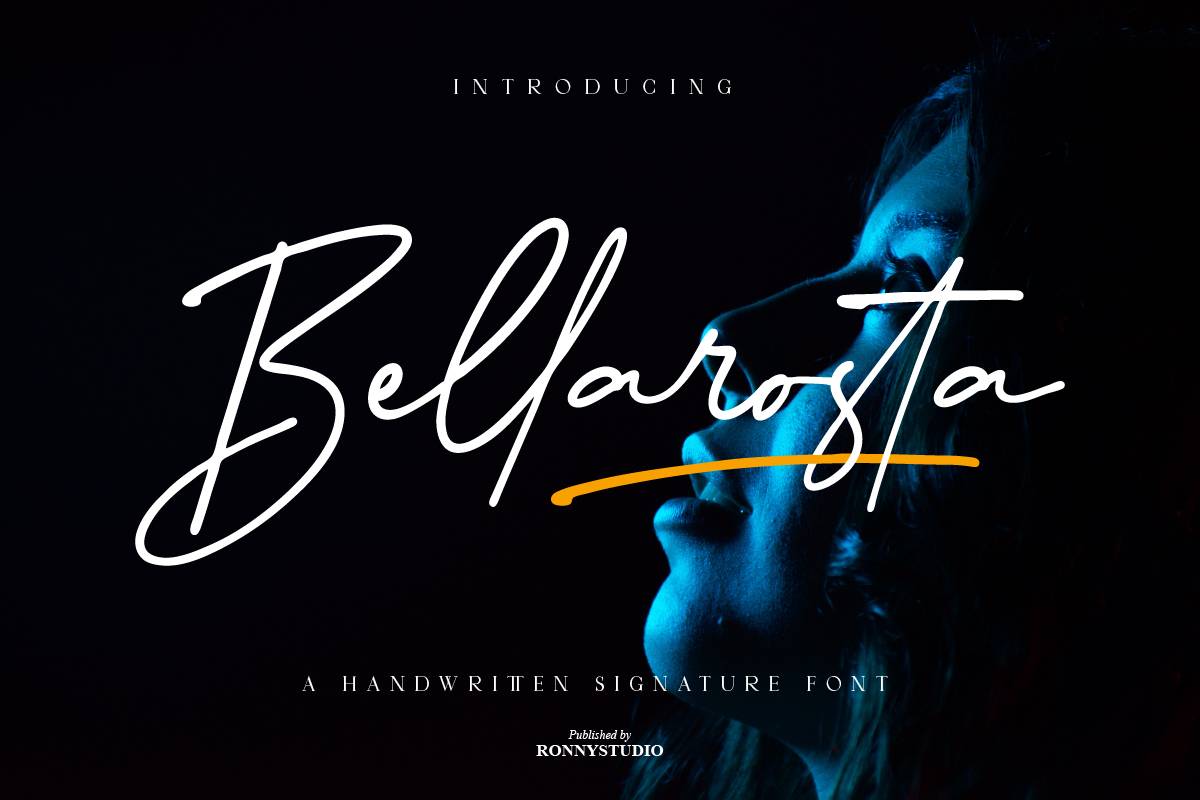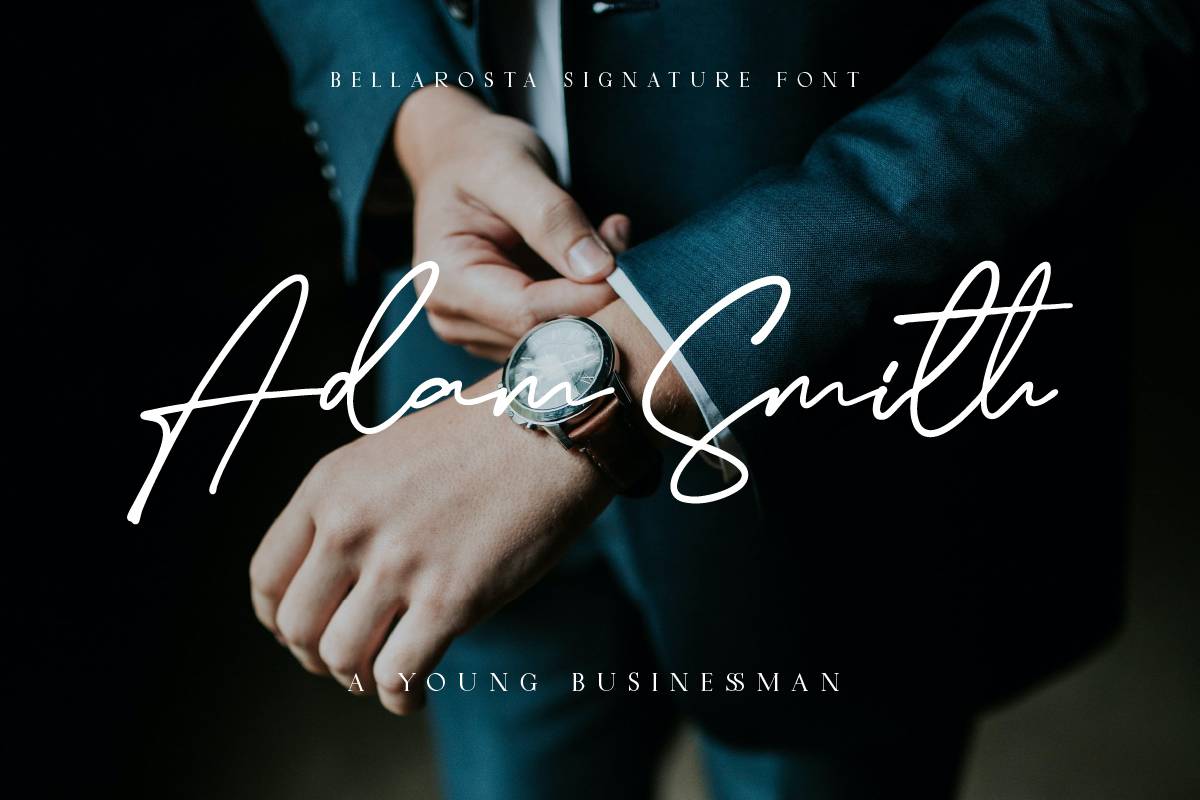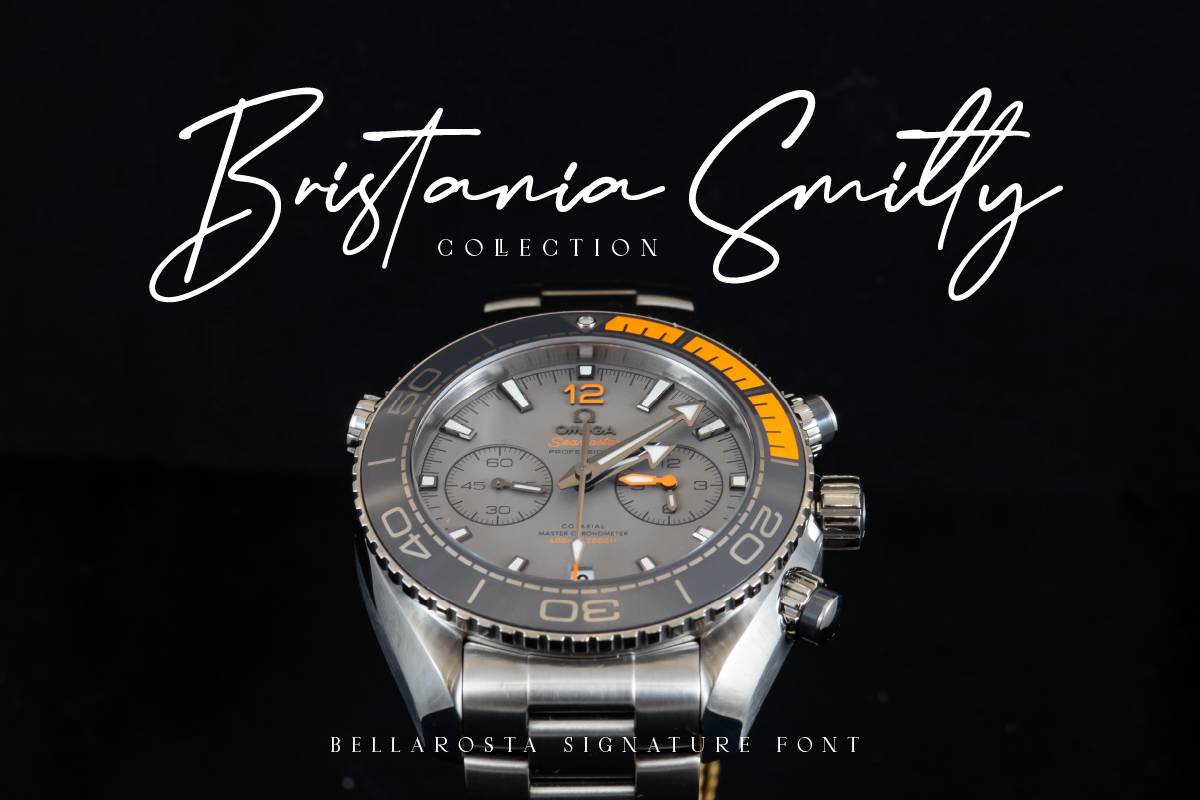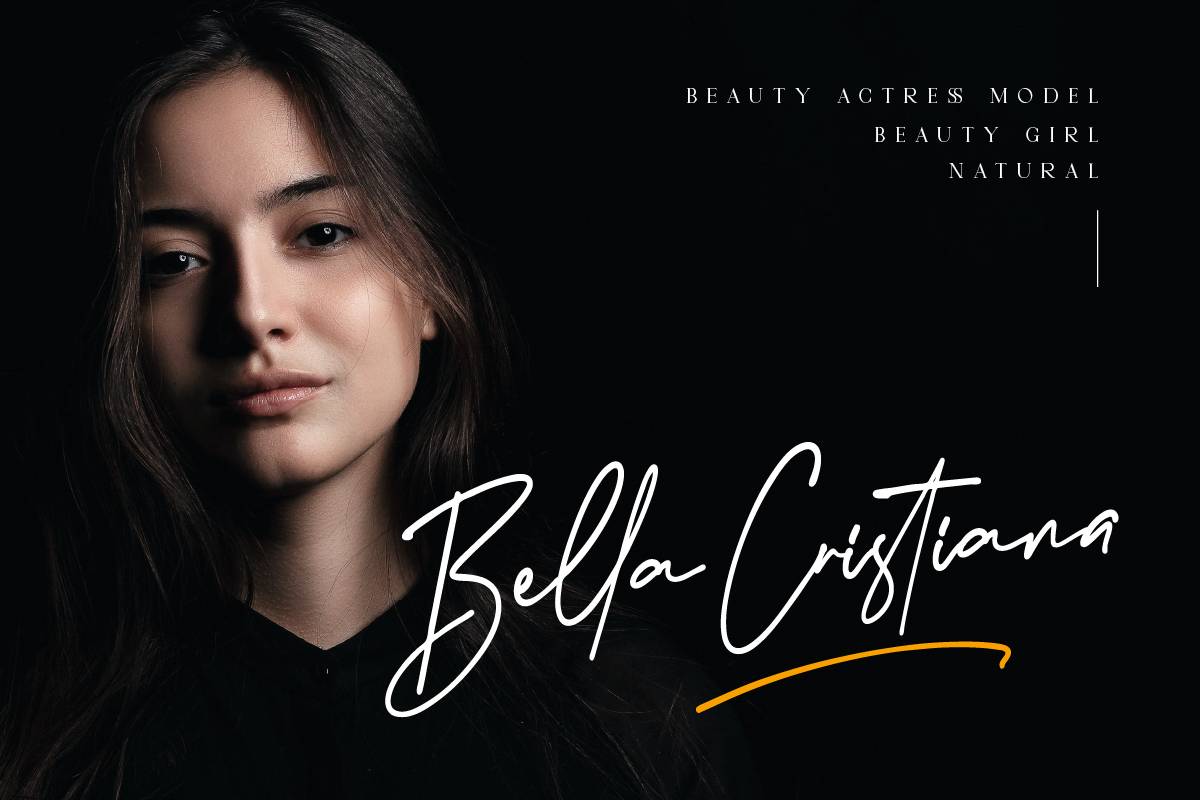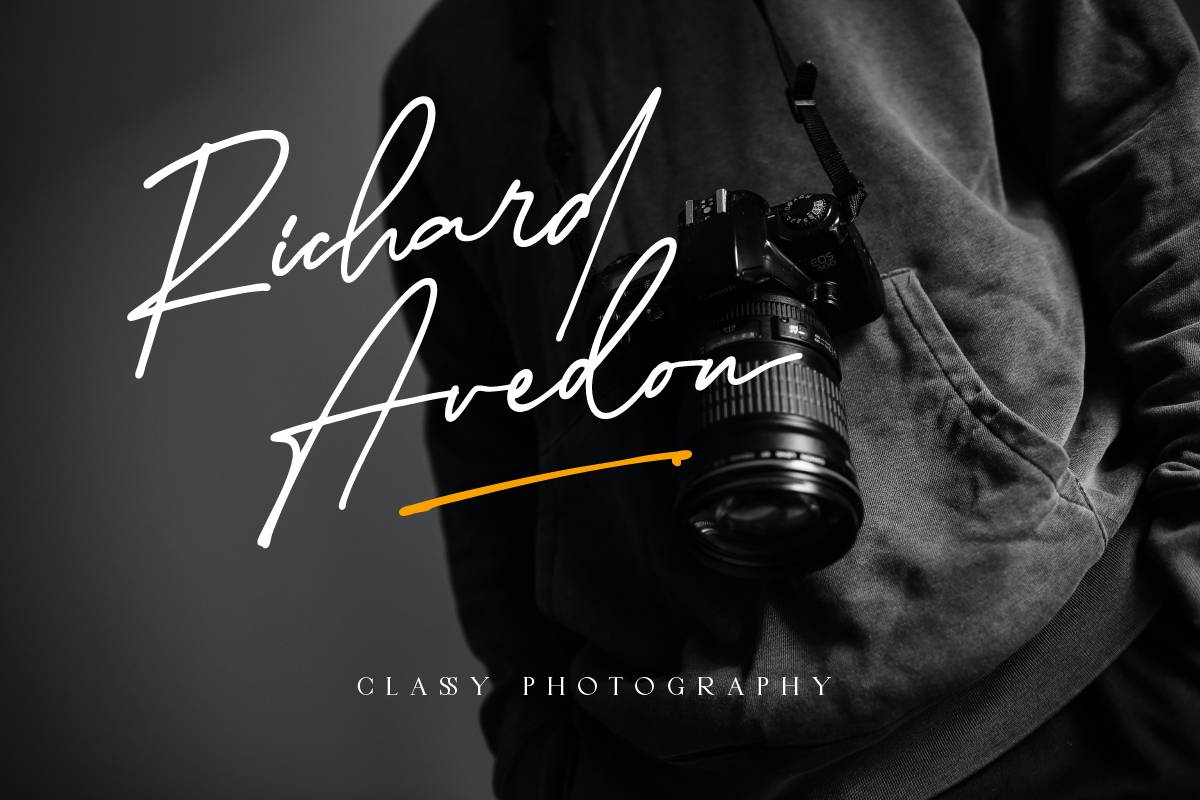
Bellarosta is a delicate, handwritten script font with a slender, elegant stroke that feels both modern and personal. Its tall, narrow letterforms with smooth, flowing lines make it perfect for adding a sophisticated, intimate touch to branding, invitations, and stylish editorial work. This font shines in designs where a refined yet approachable aesthetic is desired.
Bellarosta Font
About Bellarosta Font